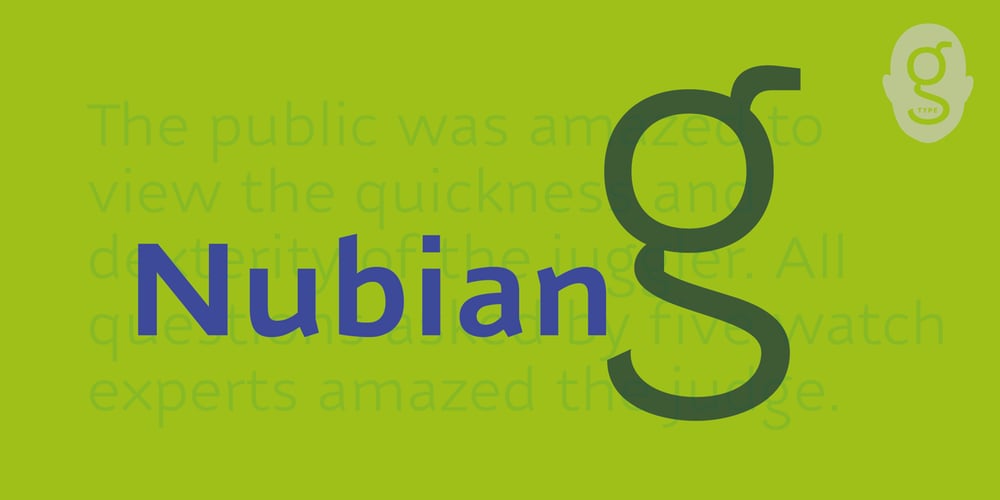
Nubian Font Family was designed by Nick Cooke and published by G-Type. Nubian contains 10 styles and family package options. Nubian was one of the first typefaces ever designed by G-Type and is an elegantly proportioned, crisply modern sans serif family. Comprising five weights from Thin to Bold with true matching italics, each font also includes two sets of figures (lining and old-style numerals) and an extended European character set. Nubian has a noticeably open, semi extended appearance providing very even ‘colour’ and excellent legibility when set as text. The contemporary letterforms work well at all sizes in print and on screen making Nubian a great choice across all media. The family has been updated to OpenType with extended language coverage.